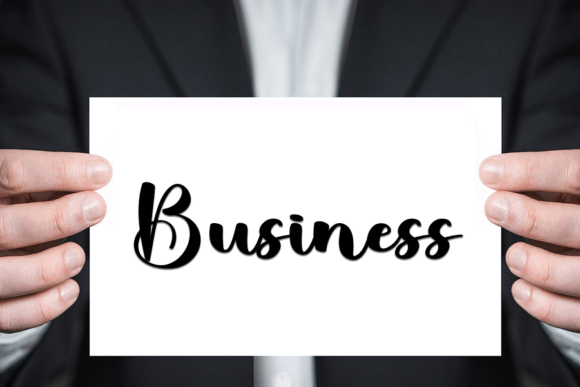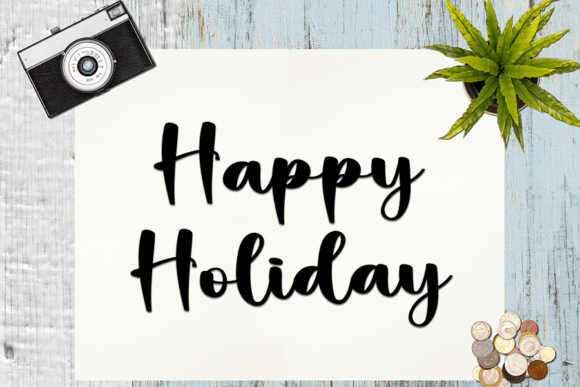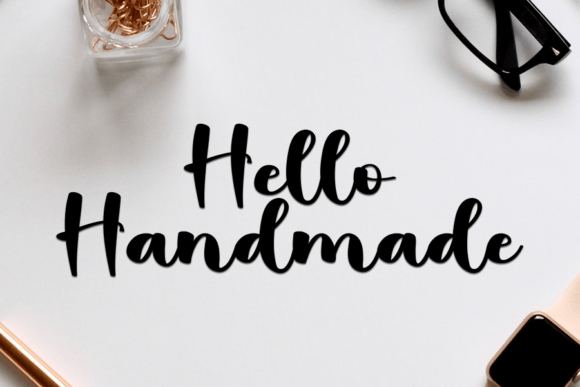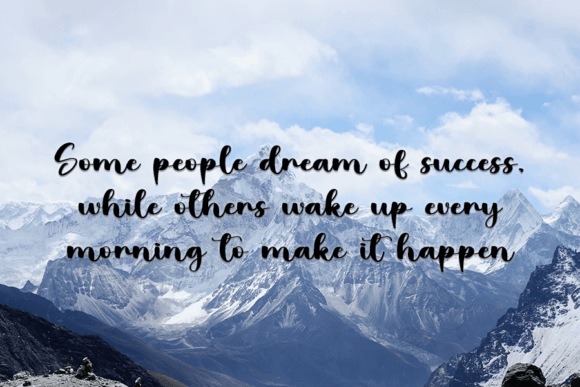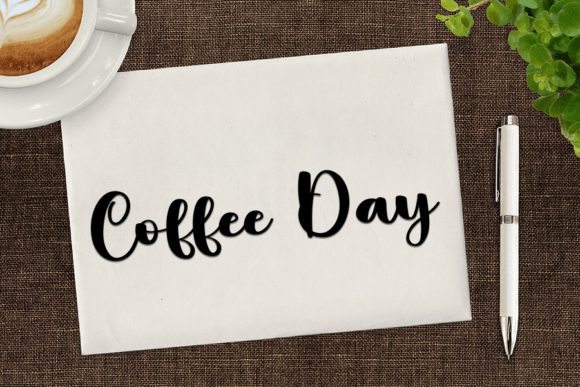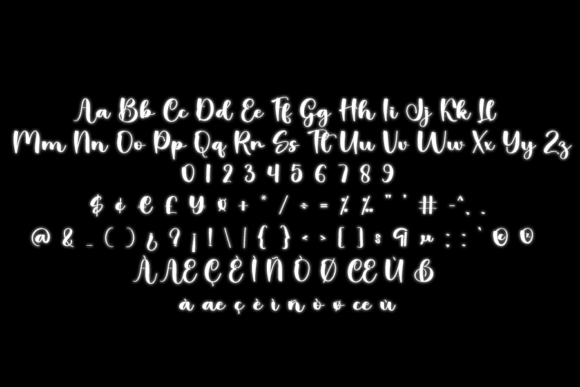
The Break Font: A Delicate Handwritten Gem for Cool Designs
I’ll never forget the time I was working on a branding project for a trendy food truck, and I just couldn’t find the right font to capture their laid-back vibe. The client wanted something that felt personal, yet stylish, and I was determined to deliver. That’s when I stumbled upon the Break font – a delicate handwritten gem that instantly resonated with the brand’s personality.
• ✨ Elegant, cursive strokes that add a touch of sophistication to any design
• 💕 Perfect for creative projects, such as invitations, letters, and food product labels
• 🎨 Great for titles, headings, and other display text
While Break is an amazing font, there are a few things to keep in mind:
• ⚠️ Some letters may appear a bit narrow or condensed, which can affect readability in certain contexts
• 🤔 Limited availability of stylistic alternates, which might limit design flexibility
The Story Behind Break: Designer Inspiration
Break was crafted by a talented type designer who aimed to create a font that felt both personal and stylish. The designer’s inspiration came from classic handwritten scripts, combined with a modern twist to make it fresh and unique. The result is a font that’s perfect for creative projects, food branding, and more.
What type of projects is Break best suited for? Break is perfect for creative projects, such as invitations, letters, food product labels, titles, and headings.
Does Break support OpenType features? Yes, Break supports OpenType features, such as ligatures and stylistic alternates, which can be accessed in compatible design platforms.